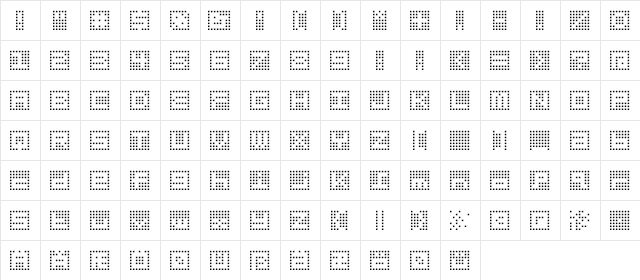
Gridder NEG
Design Context for Gridder Typeface
Gridder is a composed and adaptable typeface that performs quietly and consistently across a wide range of design contexts.